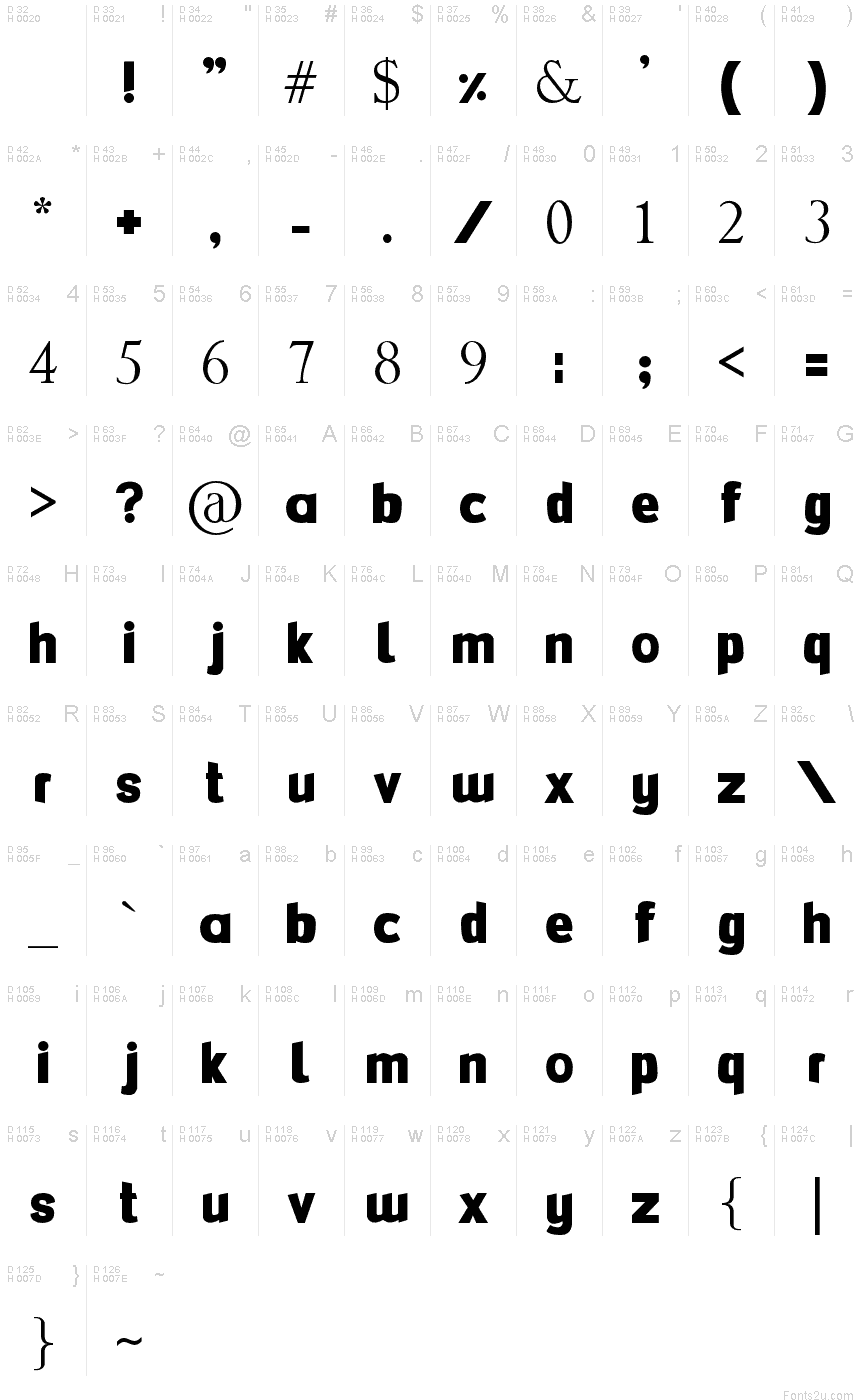
Flexi Bendi is a free heavy sans serif with broad, tightly packed letters and a lively, uneven silhouette. Rounded forms meet sharply clipped joins, and the changing angles keep the weight from feeling static.
Its dense, playful lettering can give burger packaging a punchy house style and bring the same blunt force to music posters or event merchandise. In magazine design, it is best suited to cover lines and section openers that can turn the lettering into a graphic feature.